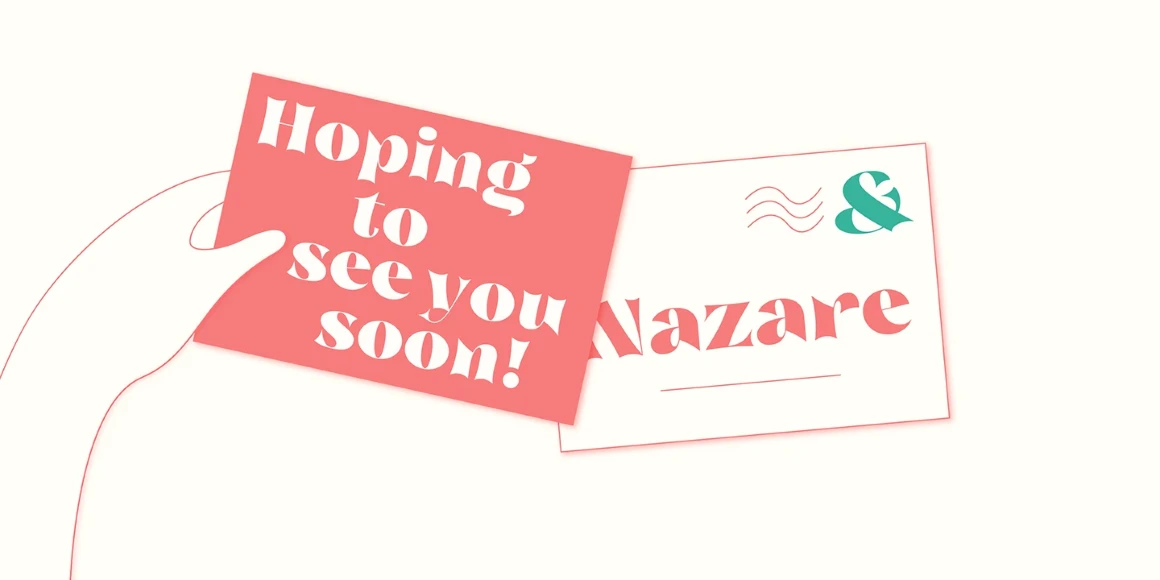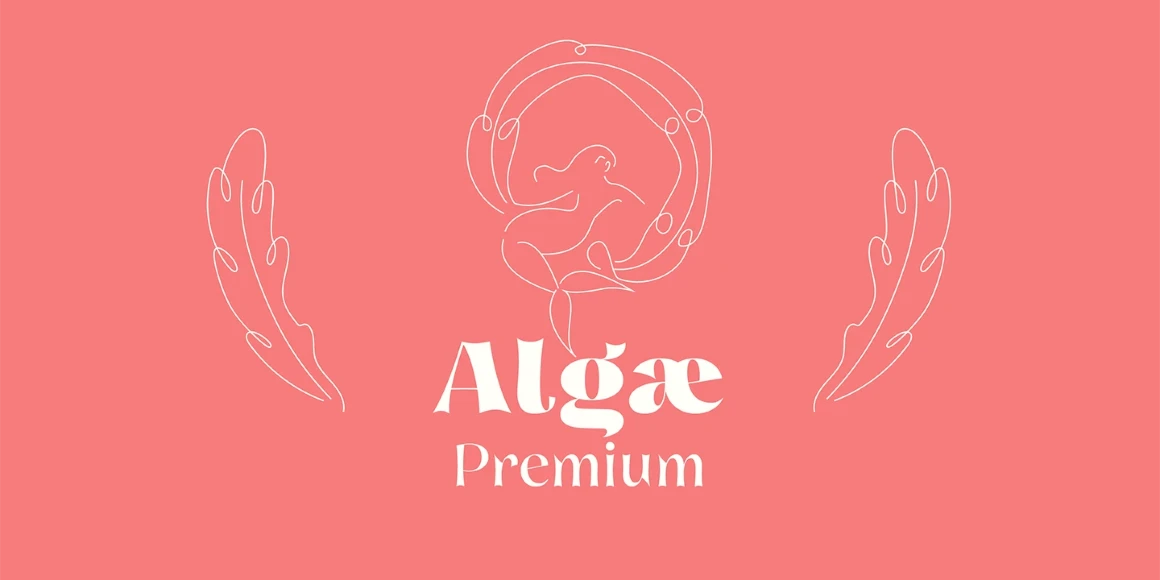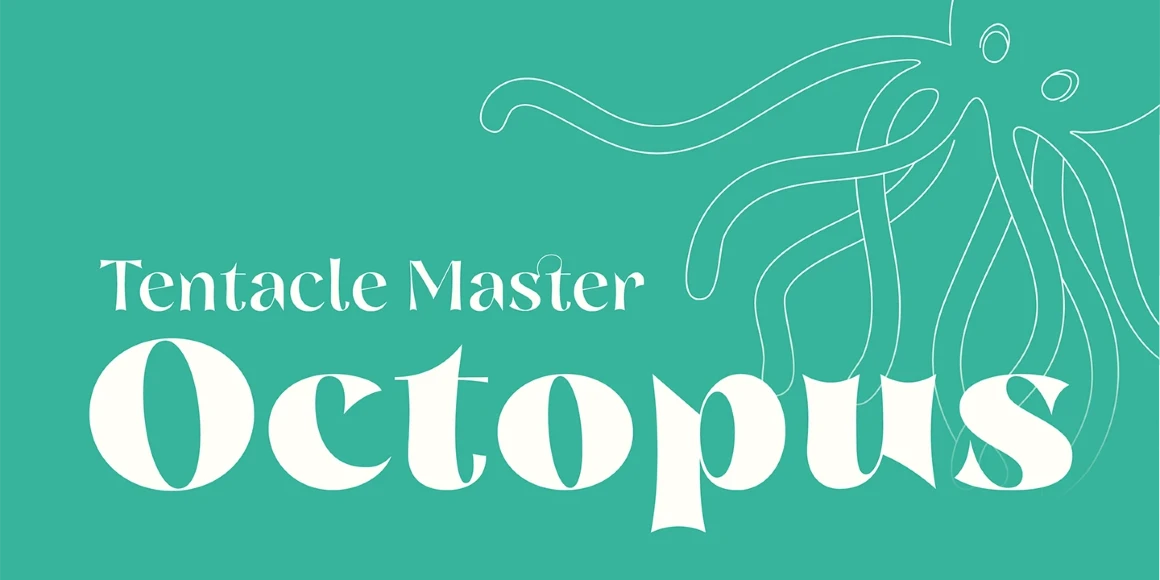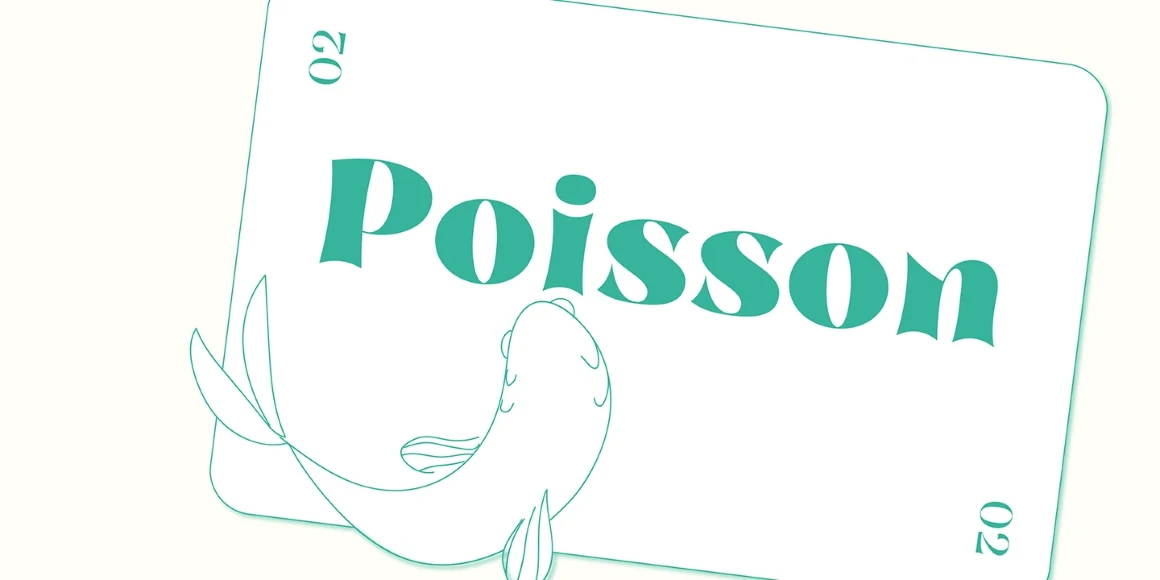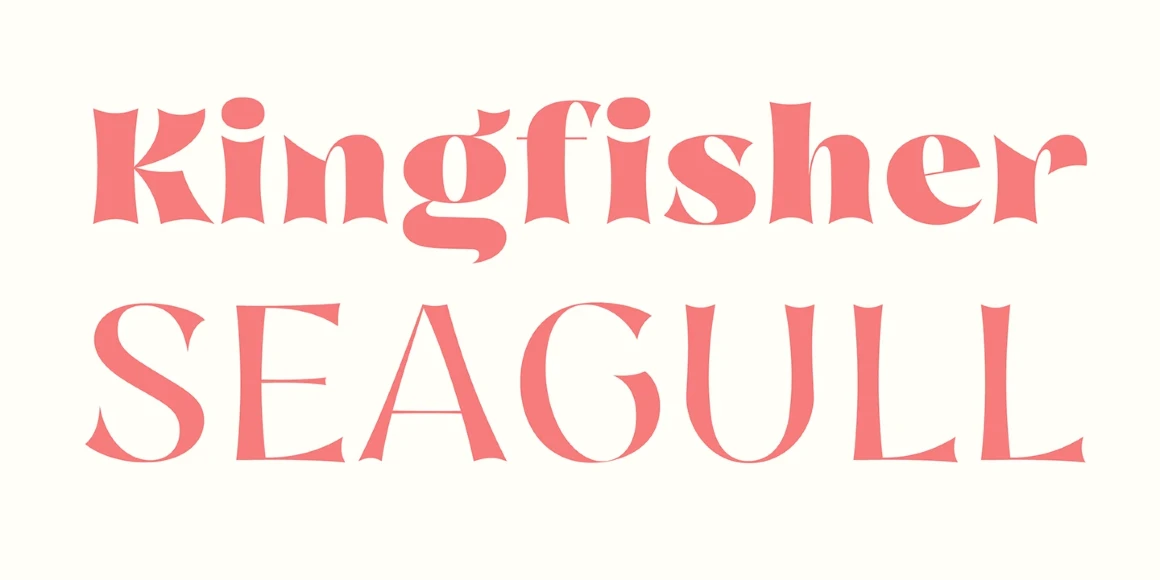
Nazare Exuberant
By Natanael Gama
Nazare Exuberant Regular
Nazare Exuberant Medium
Nazare Exuberant Bold
Nazare Exuberant Semi Bold
Nazare Exuberant Extra Bold
Nazare Exuberant Heavy
Nazare Exuberant is the elegantly luxurious sibling of Nazare. This vibrant, high-contrast design appears almost lapidary or calligraphic in style. It is meant for your posters, headlines, and anything where the words need high drama and a large setting. With its six weights, you will have plenty of room for variation. Regardless of your style choice, Nazare Exuberant is so unique that your designs will be noticed. Smaller text? You can use Nazare if you need a more text-suitable version.